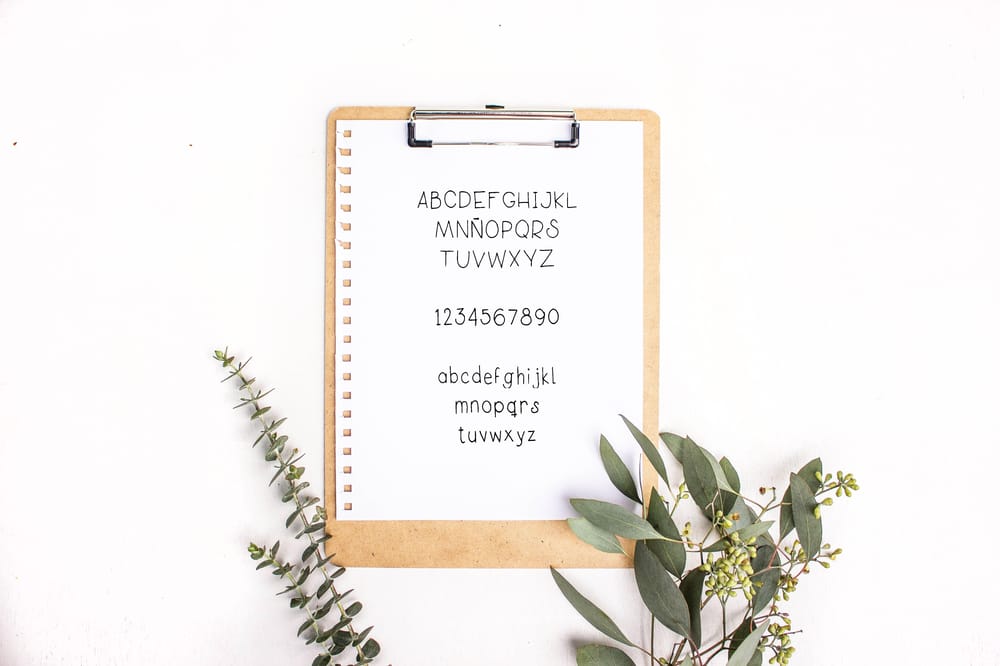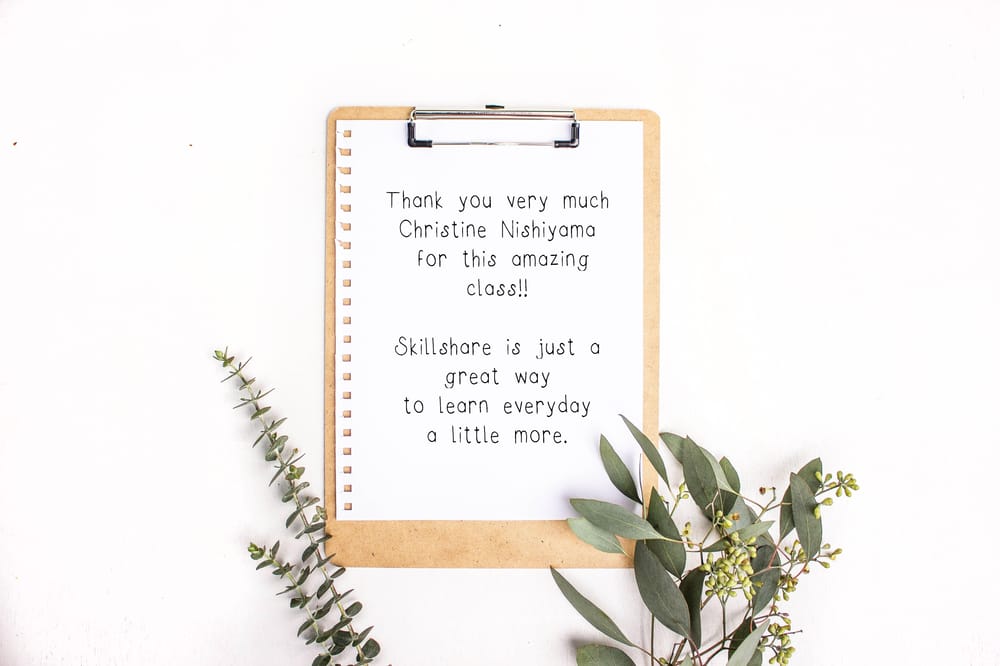
I just wanted something real simple to create my handwritting as a font for my book project and this is great.
I did it very carefully and skip the program to repair the mistakes bc I wanted a very simple handwriting.
the result is....
it is just a handwriting but sometimes this is hand to find.